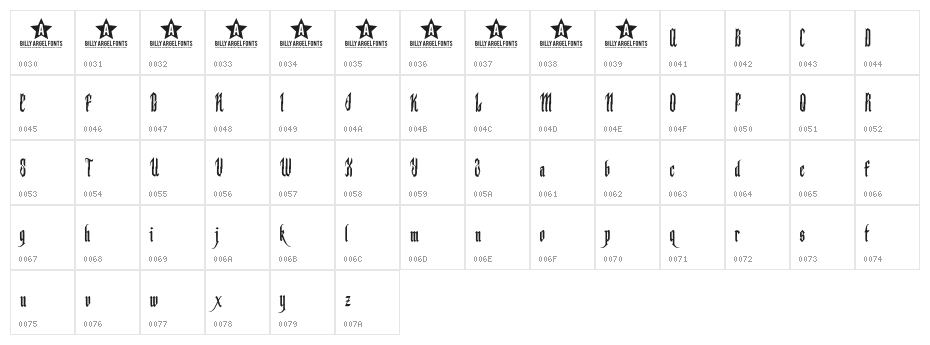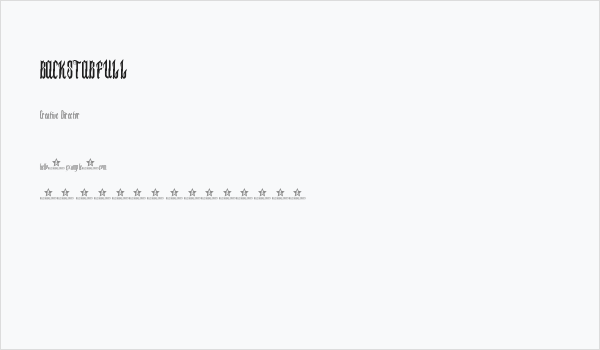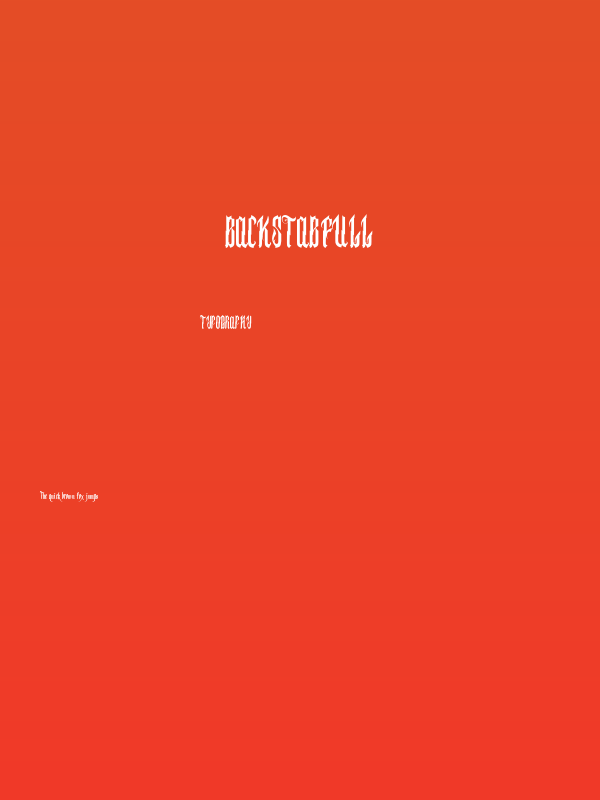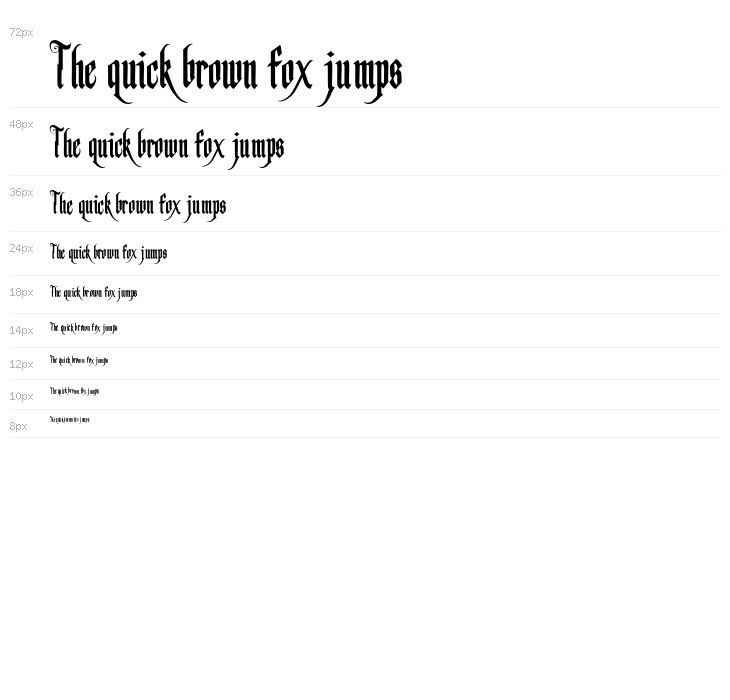
BACKSTABFULL Font
BACKSTABFULL Description
This font exudes a bold and dramatic presence, characterized by its sharp, angular lines and intricate detailing reminiscent of traditional Gothic script. The uppercase letters are particularly striking, with their tall, narrow forms and pointed serifs that convey a sense of elegance and authority. The lowercase letters maintain the same stylistic elements, ensuring consistency throughout. The overall design is highly decorative, making it ideal for projects that require a touch of historical or medieval flair. The font's unique style is both eye-catching and memorable, suitable for creating impactful headlines or logos.